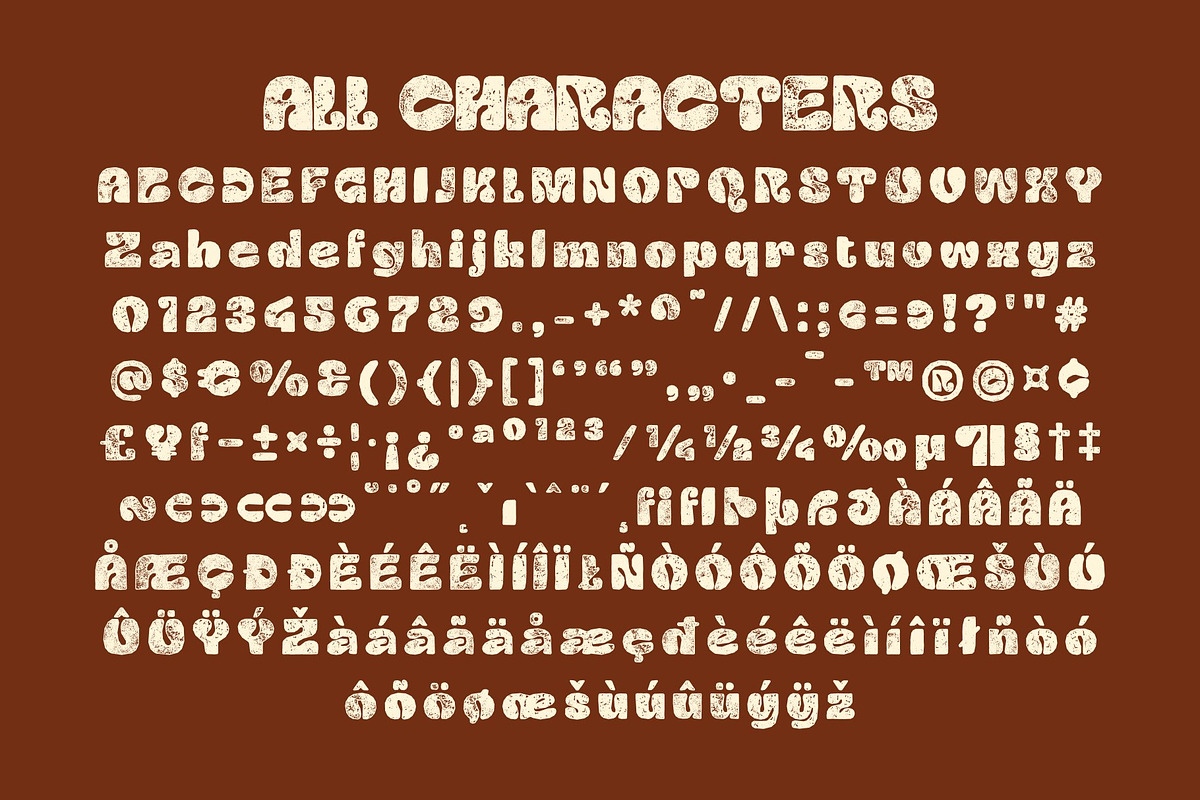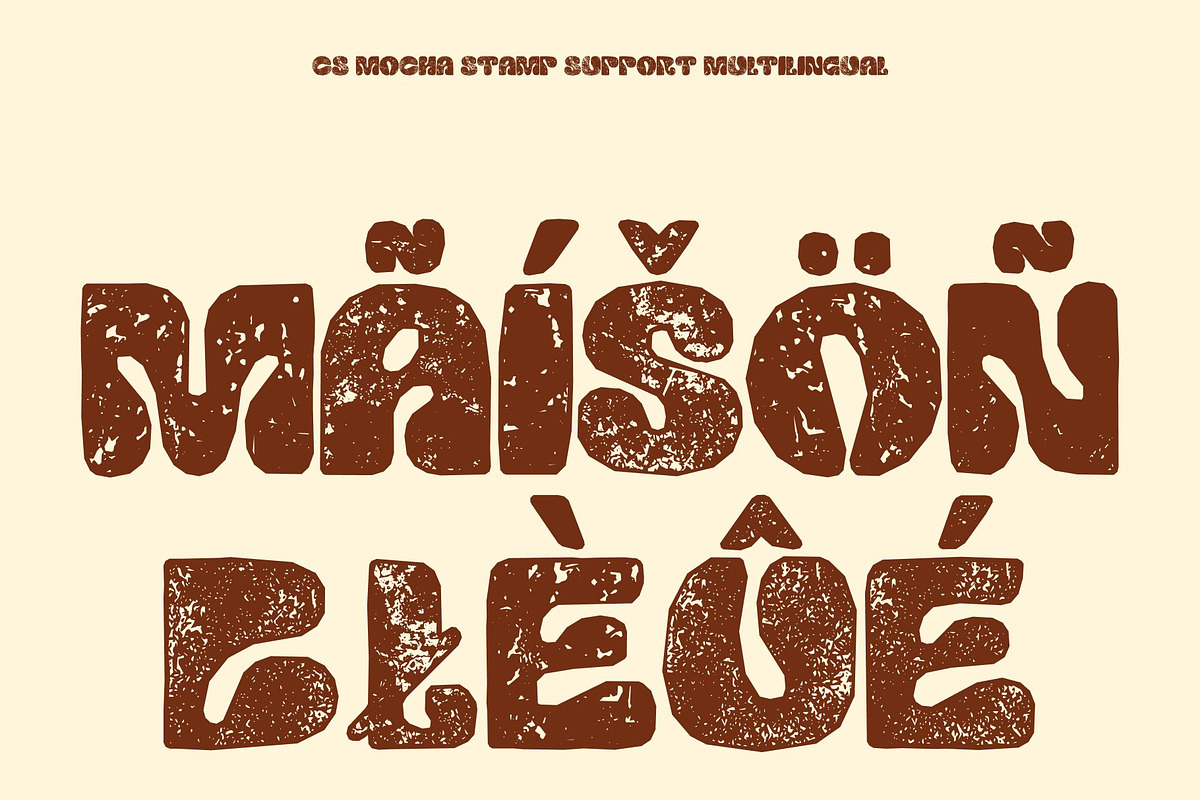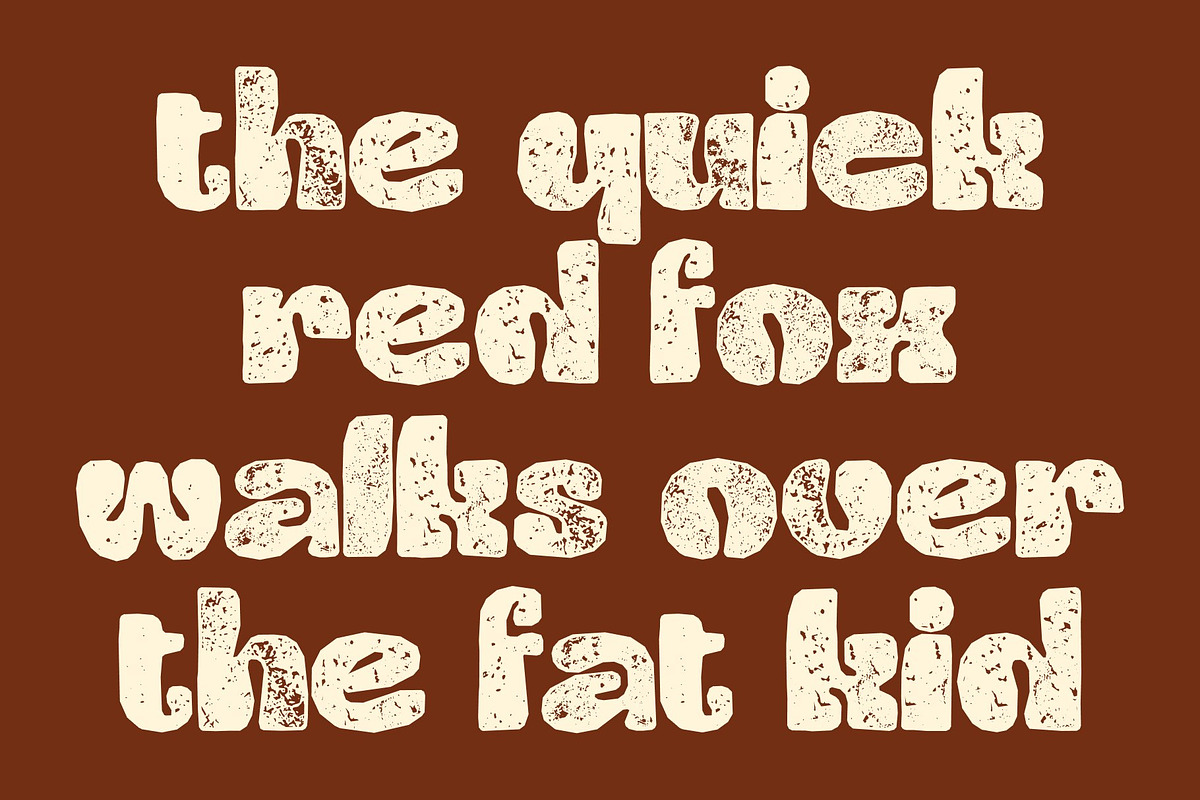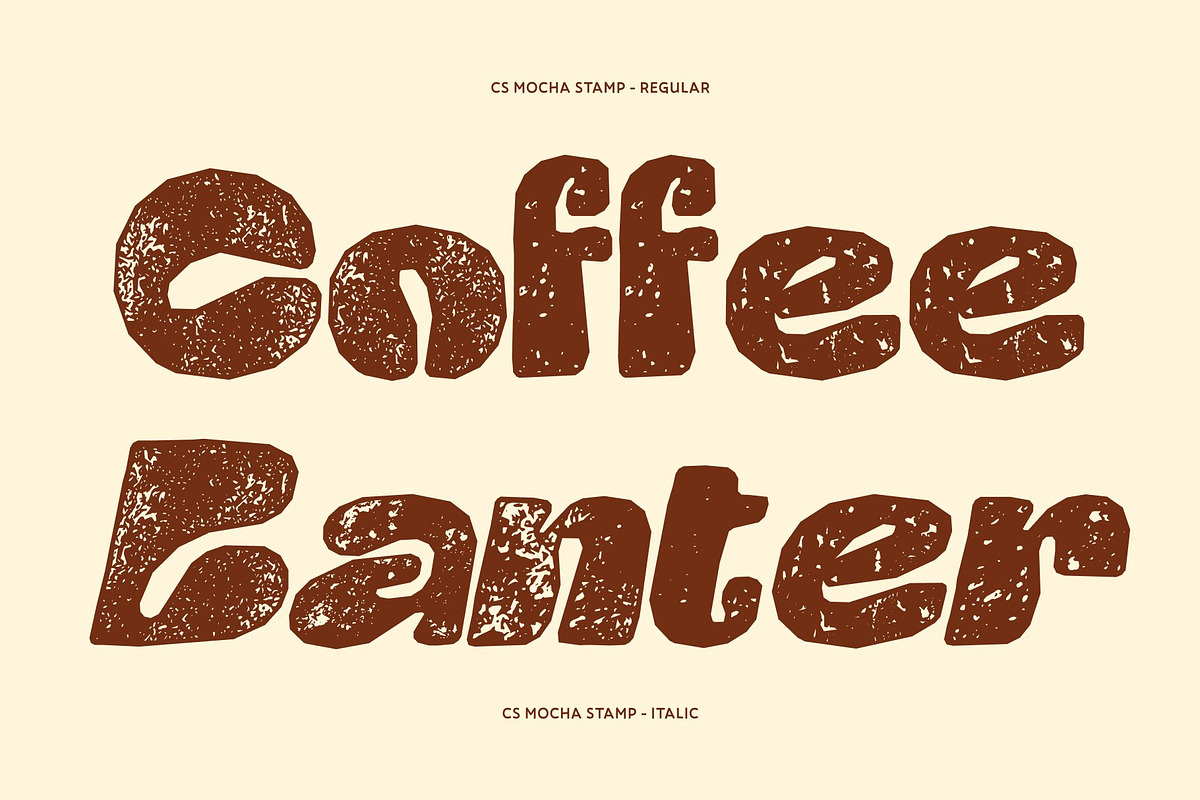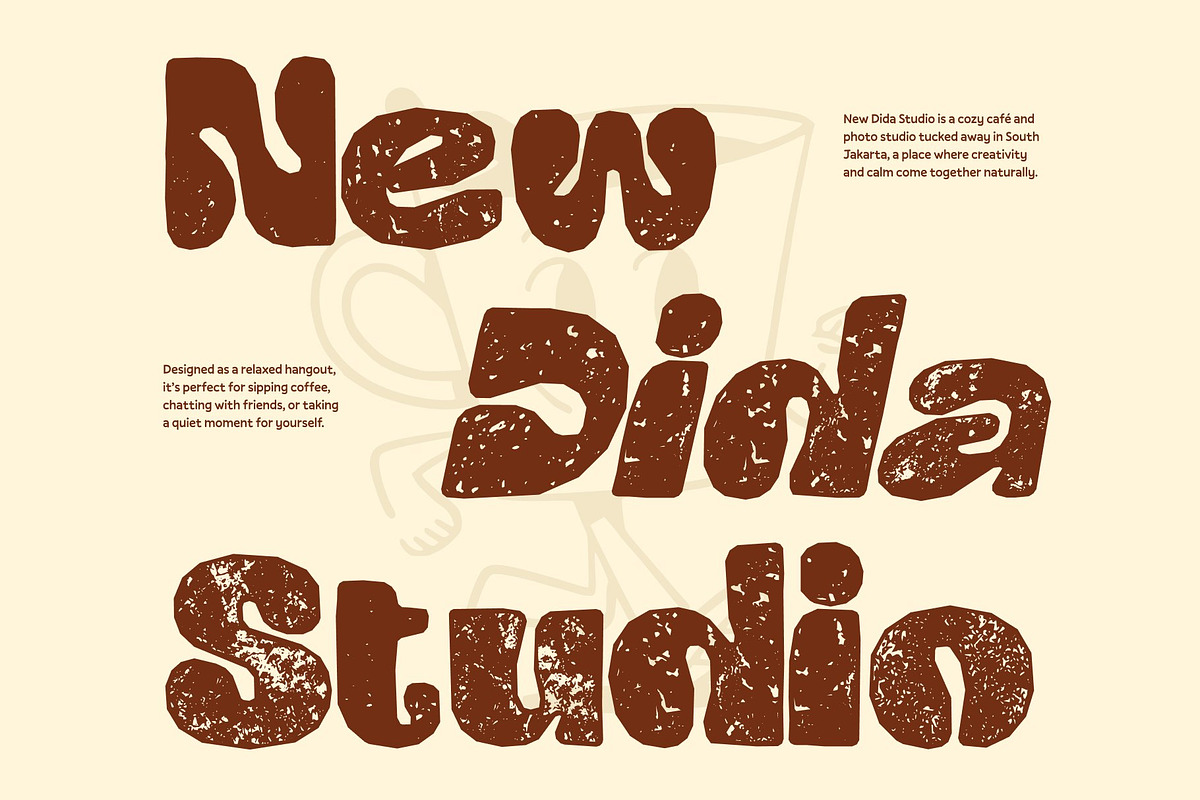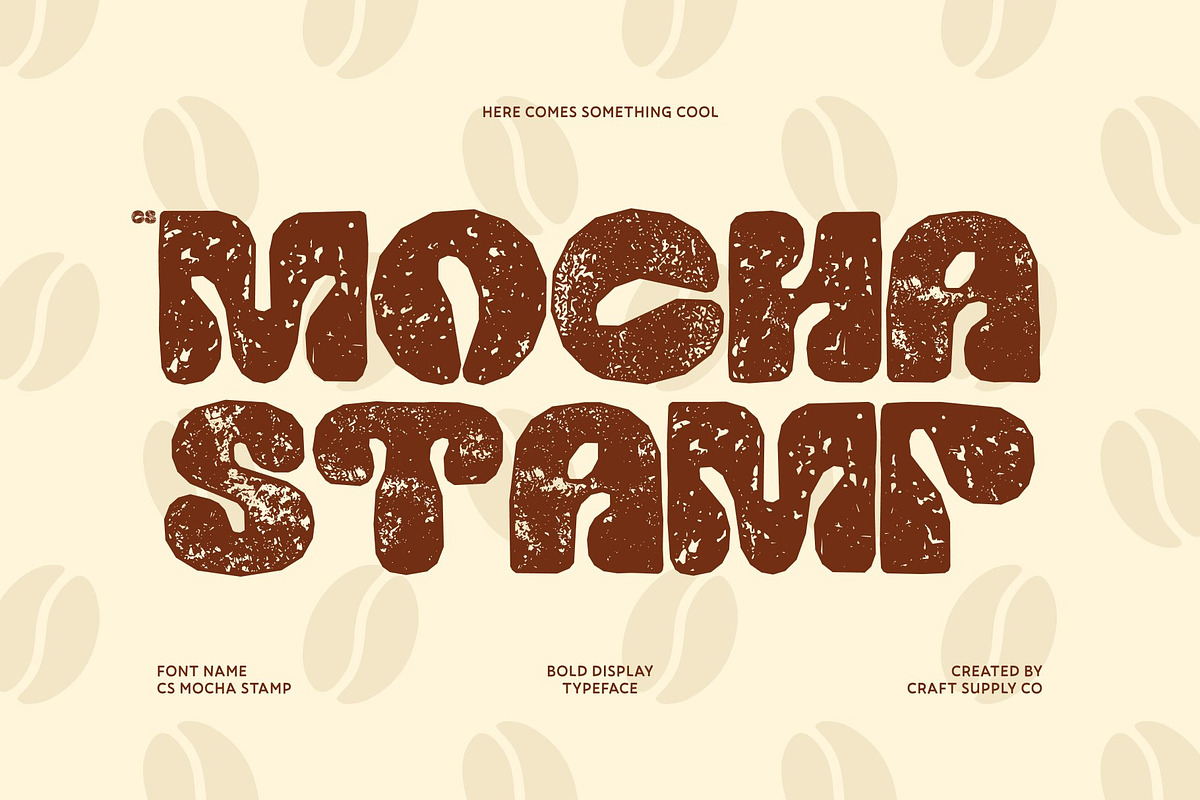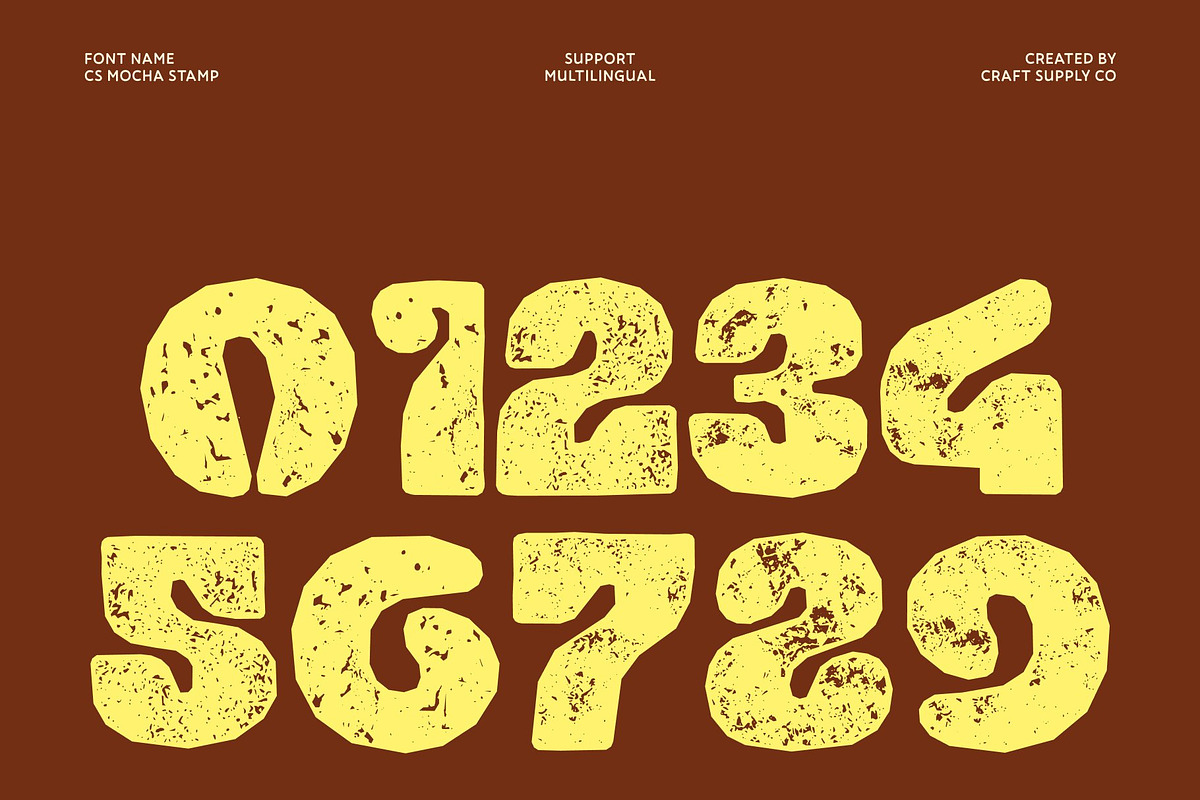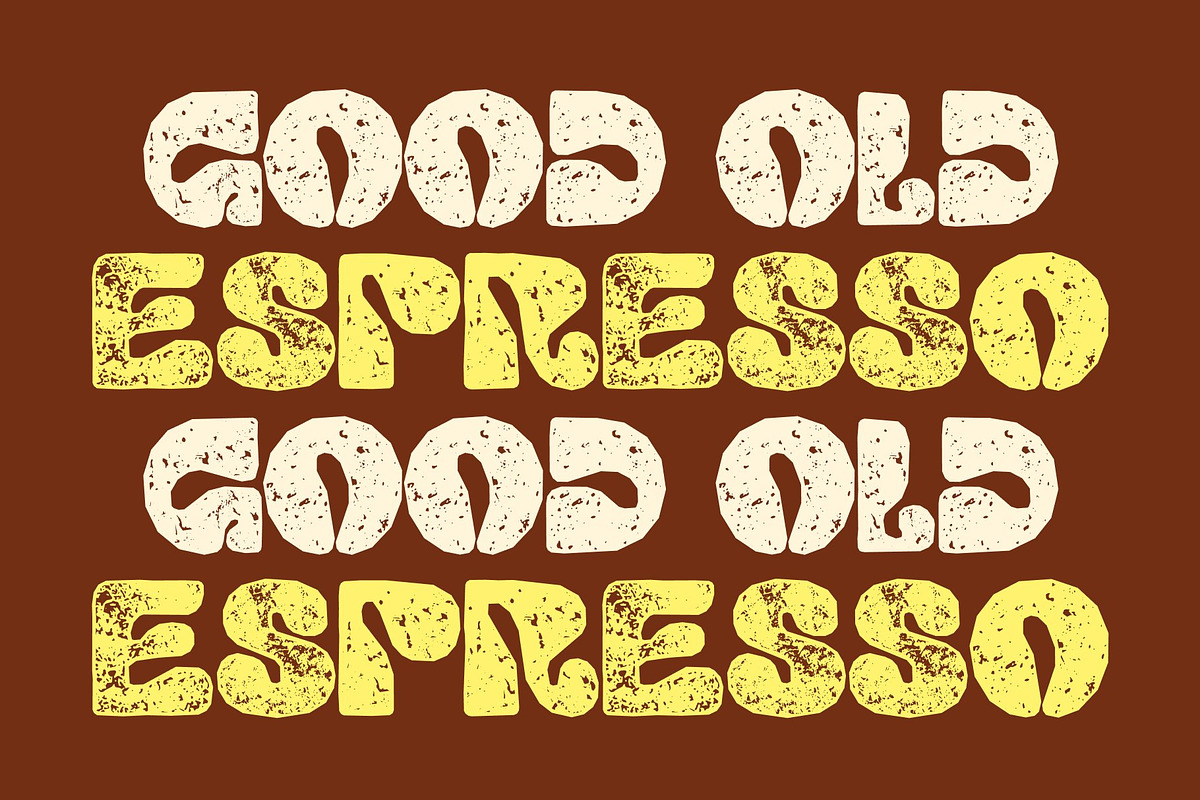
CS Mocha Stamp
CS Mocha Stamp – Display Font: Where Bold Flavor Meets Vintage Fun
Playful Coffee-Inspired Character This is a bold display font infused with a playful coffee-inspired personality. Its rich and inviting letterforms evoke the warmth and energy of coffee culture, making every word feel lively and engaging. Designed to capture attention, it brings a fun and flavorful tone to any visual composition.
Strong Forms with Expressive Impact This font features solid and confident shapes that ensure high visibility across various design formats. Its bold structure creates a strong visual presence, allowing text to stand out clearly in headlines, logos, and promotional materials. The font delivers both clarity and personality in every use.
Stamped Texture with Vintage Authenticity This font introduces a rough, uneven texture that mimics traditional print techniques. This detail adds a vintage, handcrafted feel, giving each character an authentic and slightly worn appearance. The textured finish enhances its playful charm while adding depth and artistic character.
Perfect for Coffee Branding, Posters, and Creative Projects This font ideal for posters, labels, coffee-themed packaging, fun logos, and creative branding that seek a classic yet lively impression. Its bold presence and textured detail make it perfect for coffee identities, merchandise, and promotional designs. With its blend of playful inspiration and vintage texture, this font delivers a unique and memorable typographic experience.